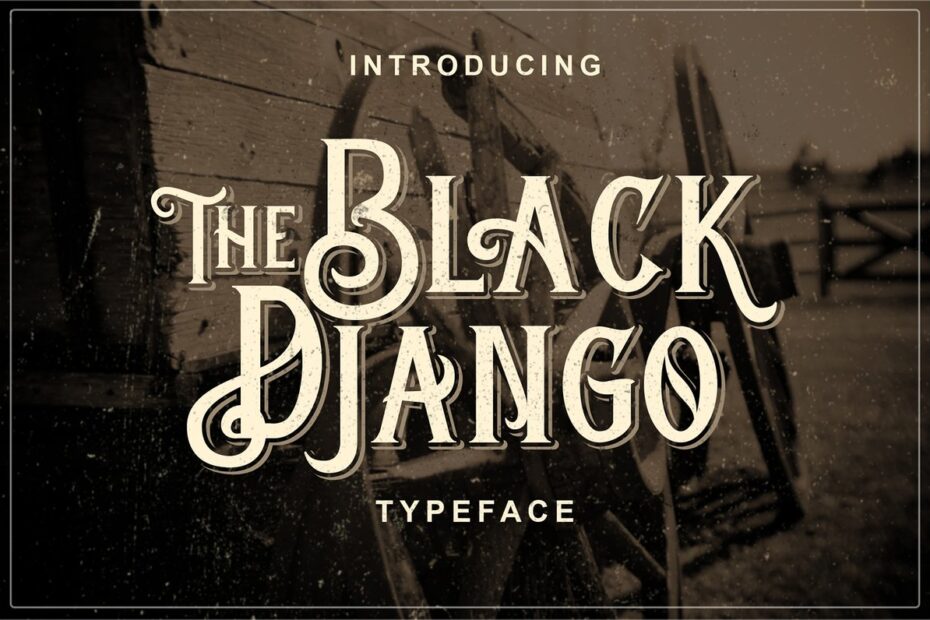
Unleash the Vintage Charm of Your Designs
There’s nothing quite like the thrill of stumbling upon the perfect font for your next design project. The moment when all the elements come together, and your vision starts to take shape – it’s a feeling that’s hard to beat. For me, that moment happened when I discovered the Black Django Font. Its stunningly decorative shapes transported me to a bygone era, and I knew I had to learn more.
Black Django Font is a vintage signage font that’s perfect for creating logos, posters, headlines, packaging, and even classical wedding designs. With its authentic touch, this font will instantly elevate your designs and make them stand out. Whether you’re a seasoned designer or just starting out, the Black Django Font is an invaluable addition to your toolkit, adding a touch of elegance and sophistication to any project.
Black Django Font Key Features
- Unique Characteristics: Black Django Font features a distressed, vintage aesthetic with bold lines, rough edges, and a distressed texture, giving it a unique and eye-catching appearance.
- Font Style: The font is available in a single style, with a bold and condensed design that makes it perfect for headlines, titles, and other display text.
Review of Black Django Font
At first glance, Black Django Font is quite striking. Its bold, dynamic feel can really add some excitement to your design projects ✨. The font’s distressed, vintage aesthetic is reminiscent of classic rock ‘n’ roll posters and adds a touch of nostalgia to any layout.
Some of the standout features of Black Django Font include:
- Unique, distressed texture that adds depth to text
- Highly legible, even in small font sizes
- Great for creating attention-grabbing headlines and titles
However, there are a few limitations to consider ⚠️. For example:
- Not ideal for body text, as the distressed texture can make it harder to read
- May not be suitable for formal or professional projects due to its bold, playful feel
Overall, I think Black Django Font is a great addition to any designer’s toolkit. While it may have some limitations, its unique aesthetic and high legibility make it a great choice for projects that need a bold, attention-grabbing font ✨.
Getting the Most Out of Black Django Font
To get the most out of the Black Django Font, use it for titles, headings, and emphasis. Pair it with a clean sans-serif font for body text to create a visually appealing contrast. Experiment with different font sizes and colors to create a unique look.
The Black Django Font is ideal for creative and design projects, such as:
– Brochures and flyers
– Web design and development
Alternatives to Black Django Font
Montserrat is a modern sans-serif font designed by Julieta Ulanovsky. It’s ideal for digital products, logos, and headlines. Montserrat is a great alternative to Black Django Font as it offers a similar feel but with a more geometric and sleek appearance.
Comparison to Black Django Font: Montserrat is more versatile and can be used in a wider range of applications, including print and digital media. While Black Django Font has a more rugged feel, Montserrat is more refined and polished.